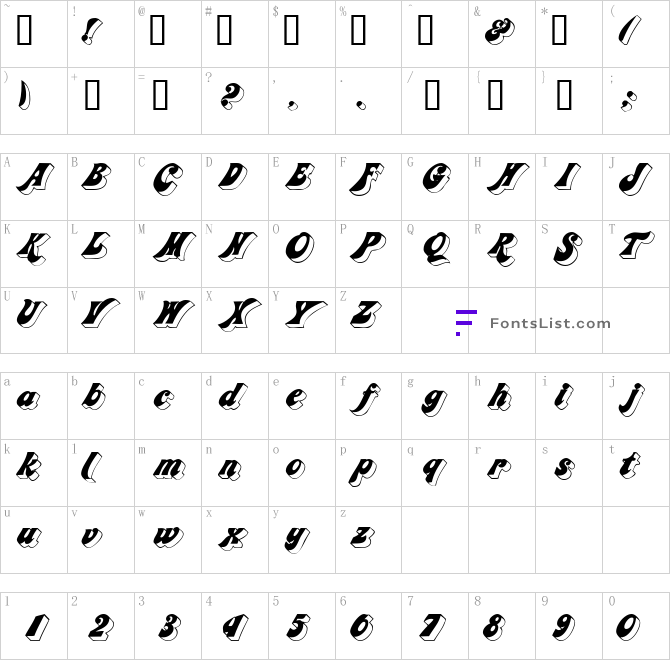
- Font Name:CalipoeDisplaySSK
- Subfamily:Macromedia Fontographer 4.1 CalipoeDisplaySSK Italic
- Full Name:CalipoeDisplaySSK Italic
- PostScript:CalipoeDisplaySSKItalic
CalipoeDisplaySSK-Italic.ttf is a very beautiful artistic font, CalipoeDisplaySSK-Italic.ttf is widely used in the design and printing of various books and pictures,CalipoeDisplaySSK-Italic.ttf has a strong visual impact,CalipoeDisplaySSK-Italic.ttf is a commonly used font in newspapers, magazines and books, and is used in posters, e-commerce Poster design, store design, logo design, font design and other fields.CalipoeDisplaySSK-Italic.